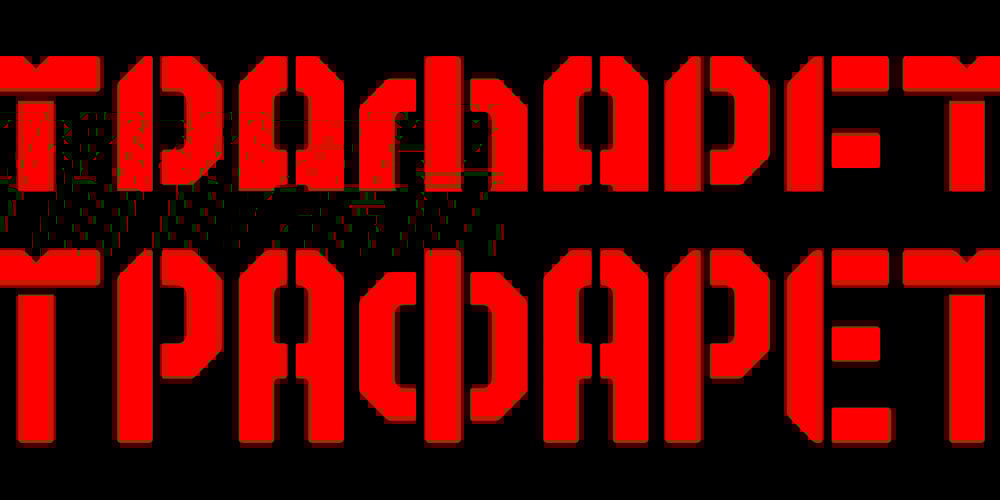
STP Stencil Cyrillic Font Family was designed by Anderson Ruda, Alexandre Ruda and published by Sete Std. STP Stencil Cyrillic contains 1 styles and family package options. Developed from the STP Display Cyrillic, the STP Stencil Cyrillic Typeface follows the same characteristic premise as its sister, in addition to composing the same number of Cyrillic and Latin characters. What distinguishes them it’s that the STP Stencil Cyrillic can be applied more easily anytime, anywhere, increasing the possibility of being used in a more craft and artistic way. Since it has characteristics of a stencil font, it brings a more urban and contemporary look, which makes ideal to use it in public spaces with large circulation of people. In addition, wayfinding, architectural, advertising, packaging, posters, among others projects, are a good request for STP Stencil Cyrillic show its vigor and all its beauty.The STP Stencil Cyrillic is a modular feature source, perfect to use it in major event signaling projects or similar. It can also be useful in any demands that requires improvisation and quick solutions.The STP Stencil has very expressive forms and counterforms, but still counts with the practicality of a stencil source and its infinite possibilities of use.